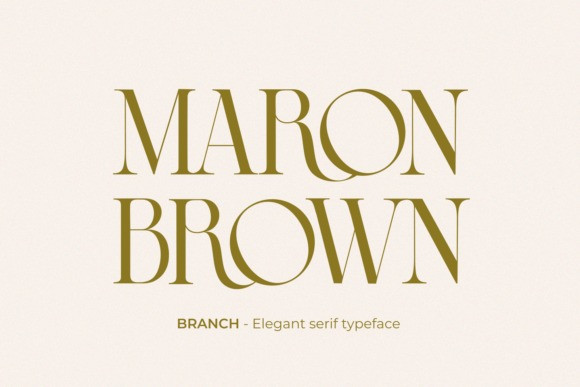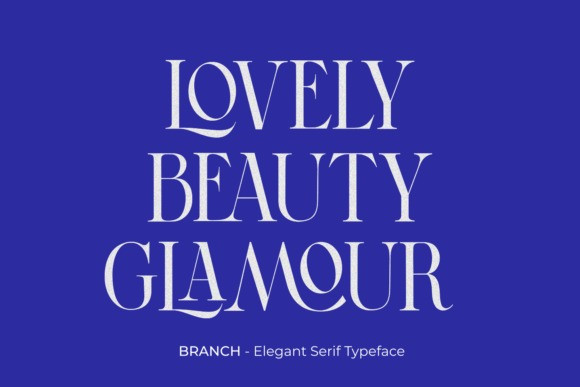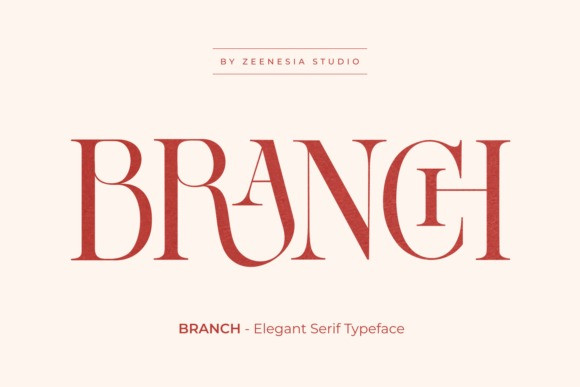
Branch Font
BRANCH Font – Elegant Serif Typeface. BRANCH is a beautiful and smooth serif font created by a romantic and lovely look. I created some natural ligatures to make this font very elegant and look so classy. It is perfect for greeting cards, wedding invitations, posters, logotypes, product branding, and much more.